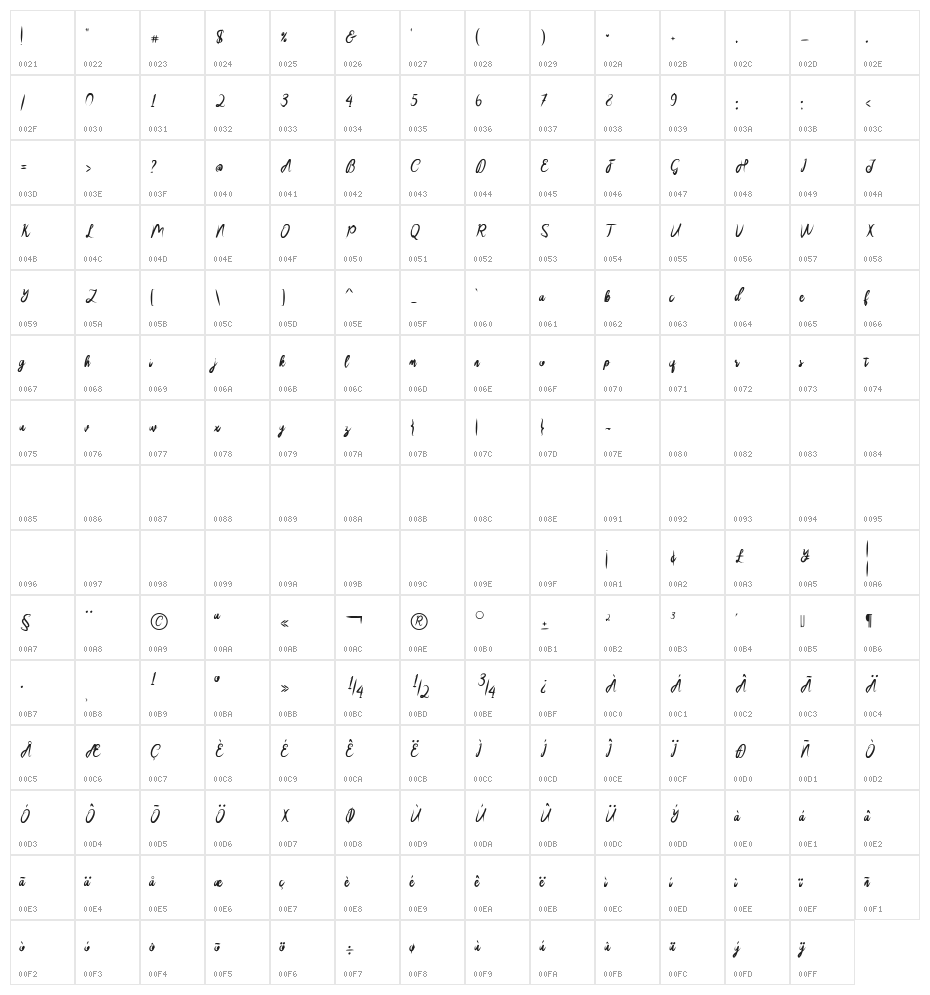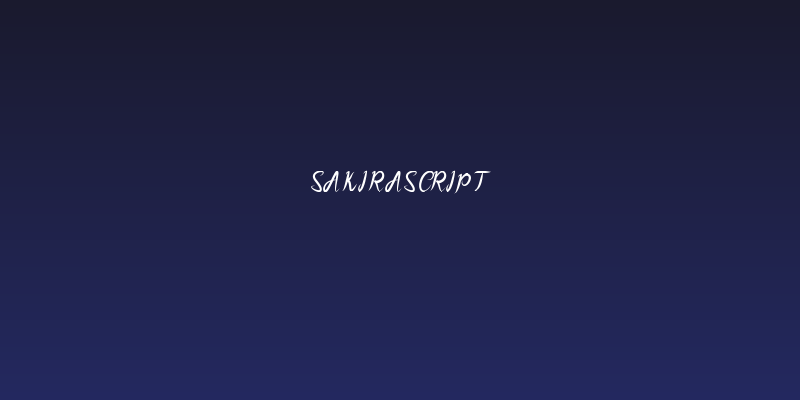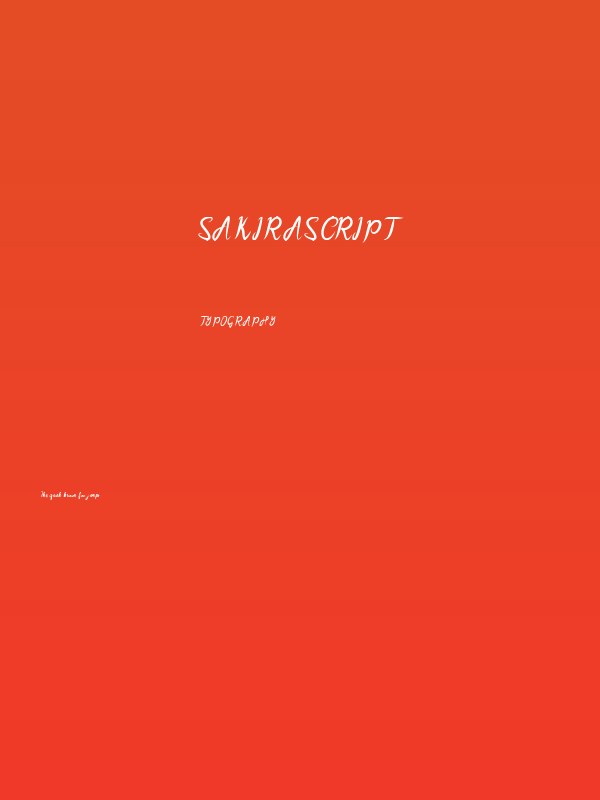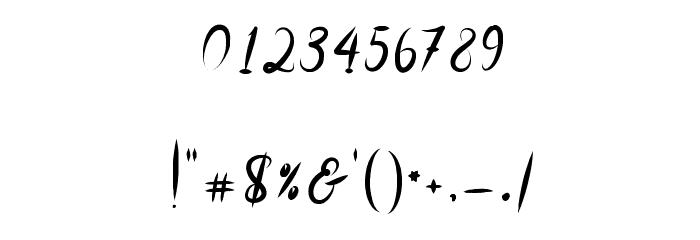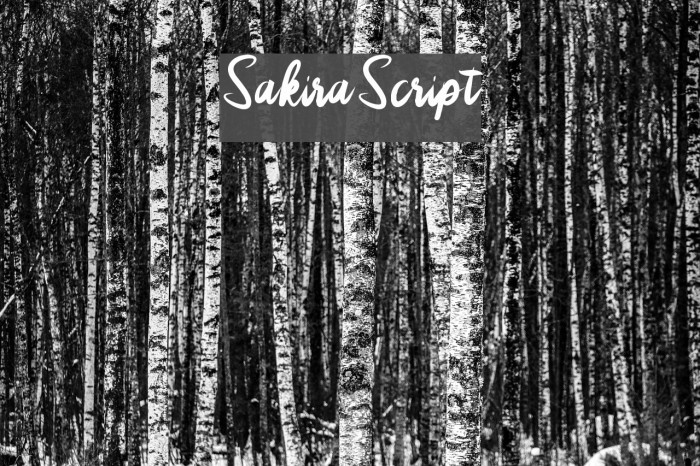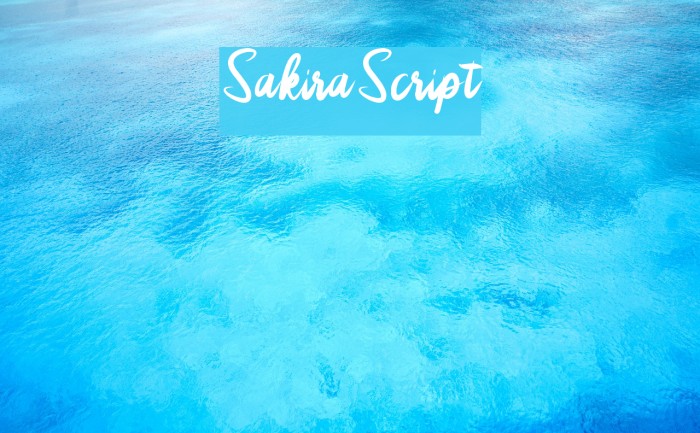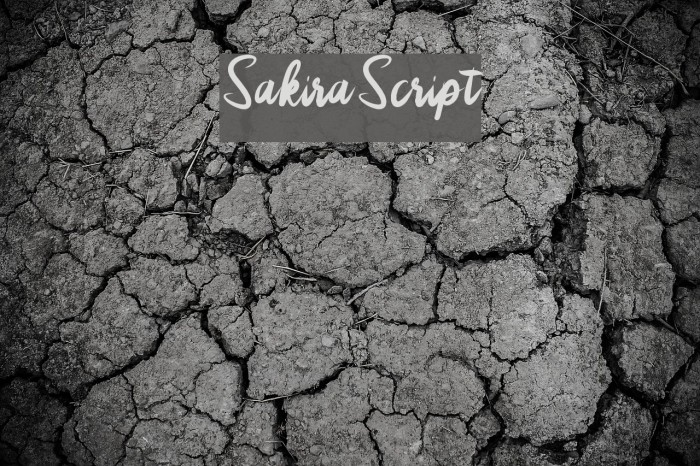
SakiraScript Font
SakiraScript Description
This elegant script font features a flowing, cursive style with smooth, connected strokes that mimic the fluidity of handwriting. The uppercase letters are slightly more embellished, with graceful loops and swirls, while the lowercase letters maintain a consistent, flowing appearance. The numbers and special characters are designed to complement the letters, maintaining the same elegant and sophisticated style. This font exudes a sense of elegance and formality, making it ideal for projects that require a personal touch.
| Overall Style | Elegant, Formal, Handwritten |
| Use Case | Logos, Invitations, Greeting Cards |
| Proposed Projects | Ideal for wedding invitations, greeting cards, personal branding, and elegant packaging designs. |